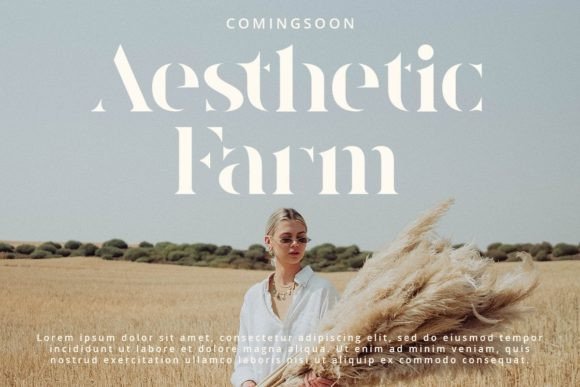
Goodies Font
Say hi to Goodies, a modern stencil serif font with a unique style and luxurious look.
This typeface is perfect for an elegant & luxury logo, classy editorial design, women’s magazine, fashion brand, cosmetic brand, fashion promotion, modern advertising design, invitation card, art quote, home decoration, book/cover titles, special events, and much more.